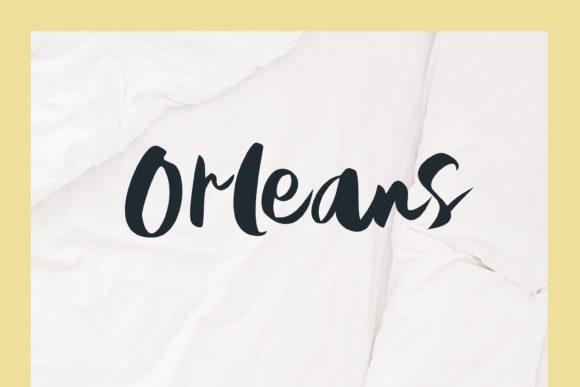
Introducing Orleans Font – The Ultimate Fusion of Modernity and Elegance!
In the world of typography, a font holds the power to transform ordinary words into captivating expressions of art. Meet Orleans Font, a breathtaking script font designed to leave an indelible mark on your creative designs. Boasting a casually brushed handwritten style, Orleans exudes a sense of playfulness and contemporary flair that sets it apart from the mundane.
Unleash your creativity with Orleans and watch as your designs take on a new level of sophistication. Its modern aesthetics seamlessly blend with its timeless elegance, making it the perfect choice for a wide range of projects. Whether you're crafting logos that demand attention or apparel designs that speak volumes, Orleans will elevate your vision to extraordinary heights.
At its core, Orleans is a font of remarkable versatility, an artistic chameleon that adapts effortlessly to a myriad of design scenarios. Embrace its dynamic nature and let it breathe life into your projects, from wedding invitations that radiate romance to social media posts that spark engagement. Its enchanting strokes captivate audiences, leaving a lasting impression that lingers long after the design is viewed.
Step into a world of limitless creativity with Orleans Font and witness the transformation it brings to your work. Its modern vibe, coupled with its boundless versatility, makes it the perfect companion for modern creatives seeking to leave an indelible mark on the world of design. Discover the endless possibilities that await you with Orleans and embark on a design journey unlike any other.